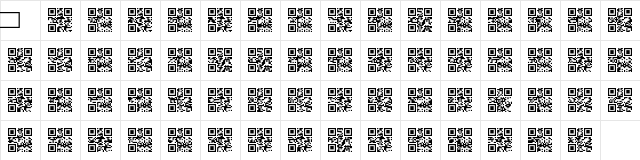
AlphanumericQR is a composed and adaptable typeface that performs quietly and consistently across a wide range of design contexts.
Pro Tip: Use AlphanumericQR in both headline and body roles to test its range before committing to a single application.